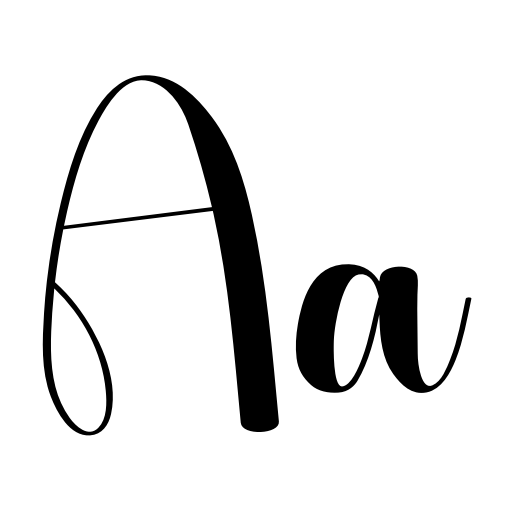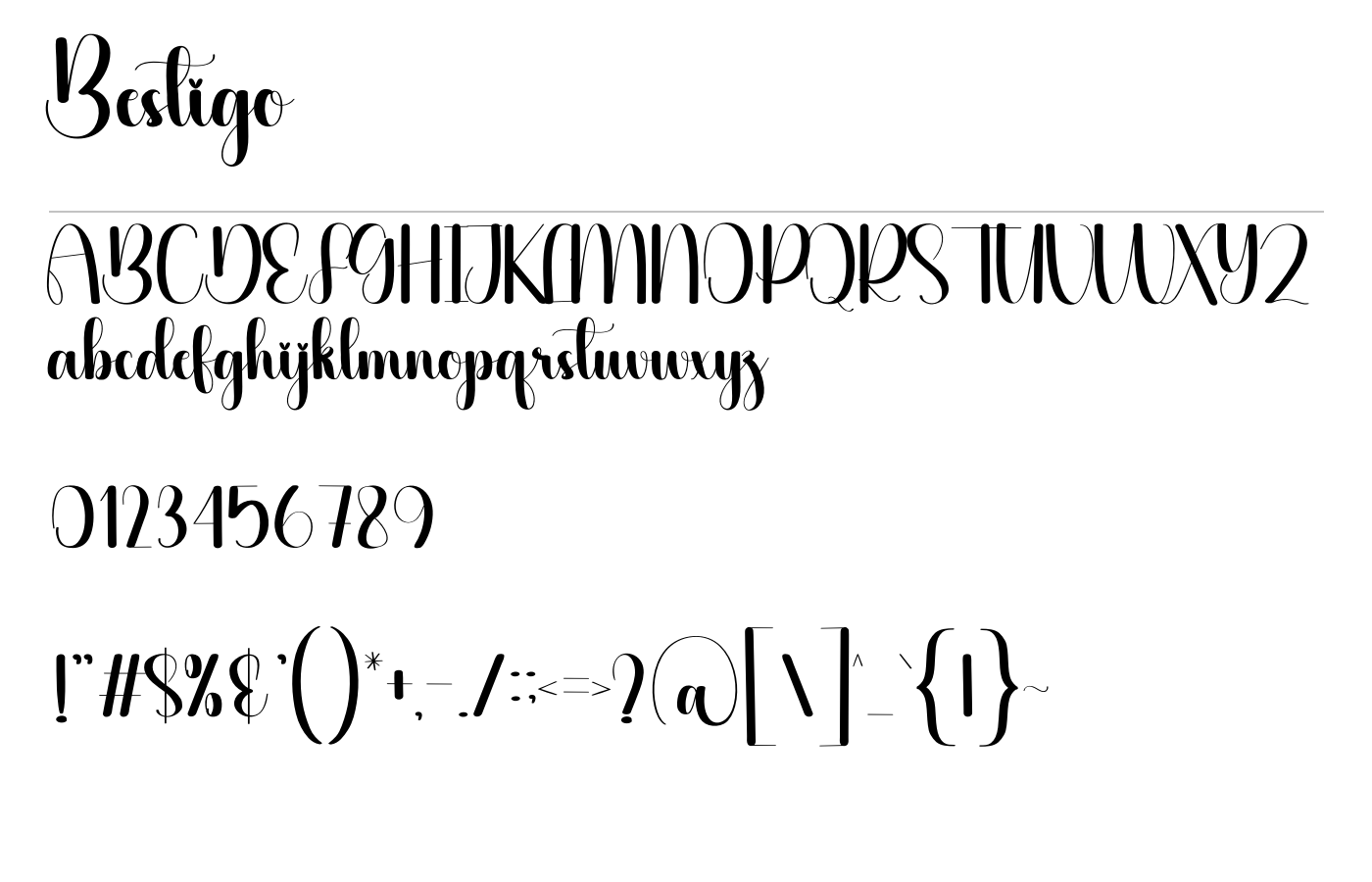
Bestigo is a playful, elegant script font with a modern twist, featuring tall, flowing letterforms with varied stroke thickness that create a lively and stylish appearance. Its delicate swashes and unique character shapes make it perfect for fashion branding, invitations, and creative headlines where a touch of sophistication and personality is desired. This font shines in contexts that call for charm and flair, adding a handcrafted, artistic feel to designs.
Bestigo Font
About Bestigo Font